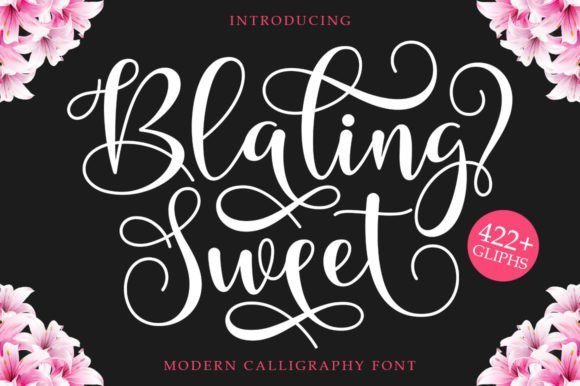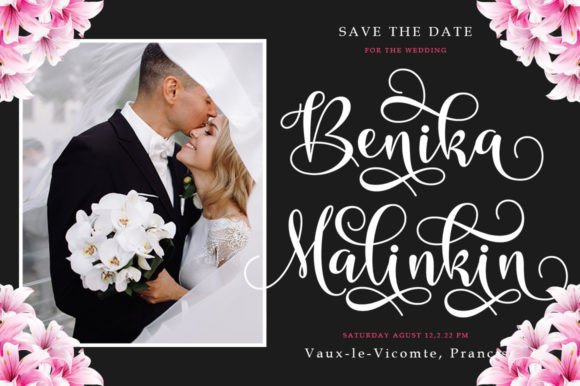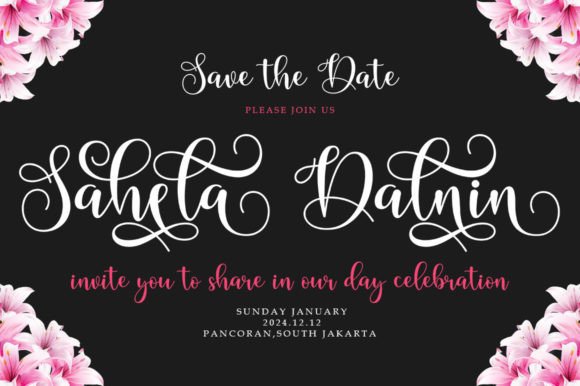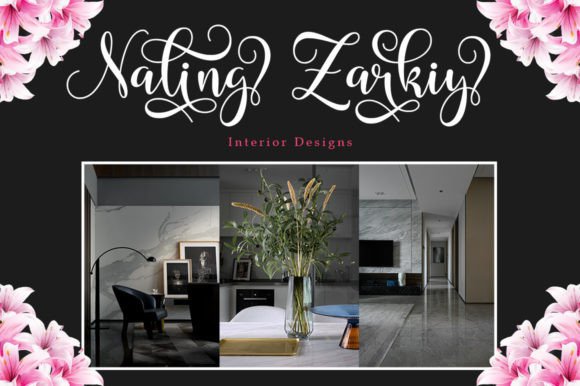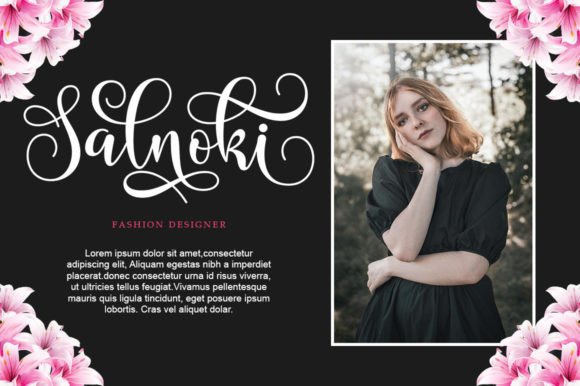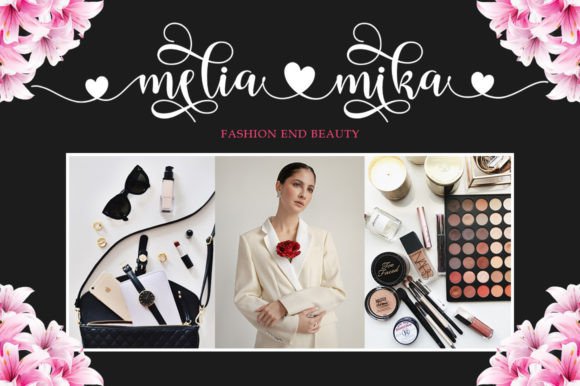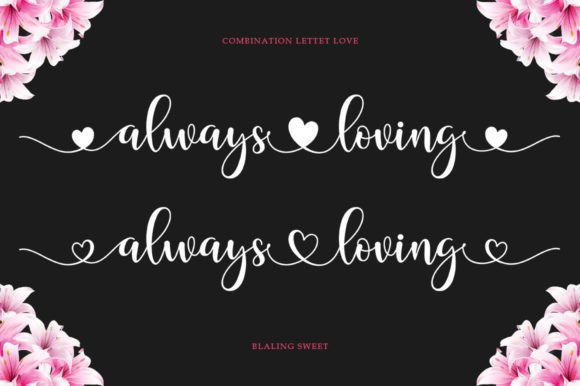
The Perfect Brushstroke: Unleashing the Beauty of Blaling Sweet Font
Have you ever been stuck on a design project, struggling to convey the perfect sentiment with your chosen font? Maybe it’s a wedding invitation that needs a touch of elegance or a greeting card that requires a heartfelt message. Whatever the case, the right font can make all the difference.
That’s where Blaling Sweet Font comes in – a stylish and incredibly elegant handwritten font that’s perfect for adding a personal touch to any design. Whether you’re a professional designer or a creative enthusiast, Blaling Sweet Font is a valuable addition to your toolkit. With its PUA encoding, accessing all the glyphs and alternates is a breeze, giving you the freedom to unleash your creativity.
- Unique Characteristics: Blaling Sweet Font features a unique blend of modern and traditional design elements, with a focus on elegant and sophisticated typography.
Blaling Sweet Font Review
I recently had the chance to work with the Blaling Sweet Font, and I must say it’s an interesting choice. Here’s my honest take.
- ✨ Unique style: Blaling Sweet Font has a distinct aesthetic that sets it apart from more traditional fonts. Its quirky, playful feel can be perfect for certain designs.
- ✨ High legibility: The font is surprisingly easy to read, even at smaller sizes. This is a great advantage for designers working with limited space.
- ✨ Great for titles: The font’s bold, eye-catching quality makes it ideal for headlines and titles.
- ⚠️ Limited versatility: Blaling Sweet Font is best suited for playful, creative projects. It may not be the best choice for more formal or serious designs.
- ⚠️ Limited character set: I noticed that the font’s character set is somewhat limited, which may cause issues for designers working with non-ASCII characters.
- ⚠️ Not ideal for body text: While the font is readable, it’s not the most comfortable to read for extended periods. It’s best used for short blocks of text or titles.
Overall, Blaling Sweet Font is a solid choice for designers looking to add some personality to their projects. While it has its limitations, it’s a great tool to have in your toolkit. Just be mindful of its unique strengths and weaknesses, and you’ll be able to get the most out of it.
Blaling Sweet Font is ideal for creating playful and whimsical designs, such as:
Children’s book covers
Party invitations
Food and beverage branding
Remember to use Blaling Sweet Font in moderation, as it can be overwhelming in large quantities.
Blaling Sweet Font is a beautiful, elegant font that adds a touch of sophistication to any design project. However, there are other alternatives that offer similar characteristics and can be used in various design contexts.